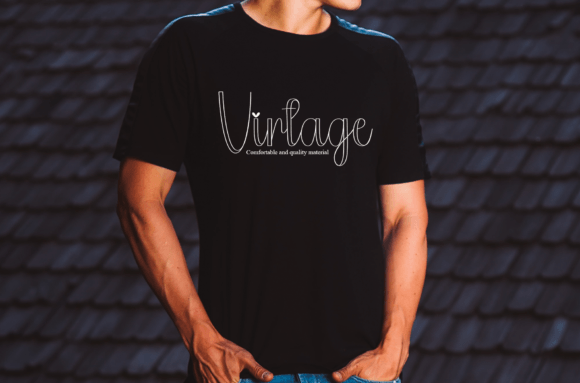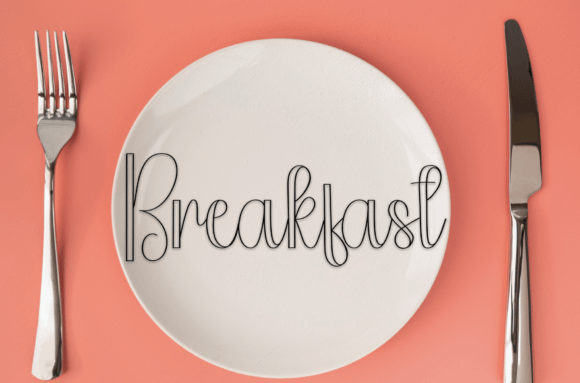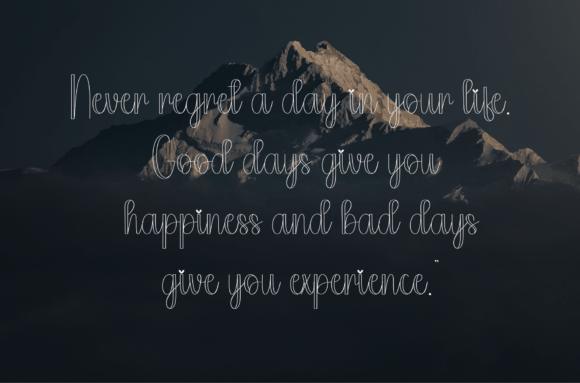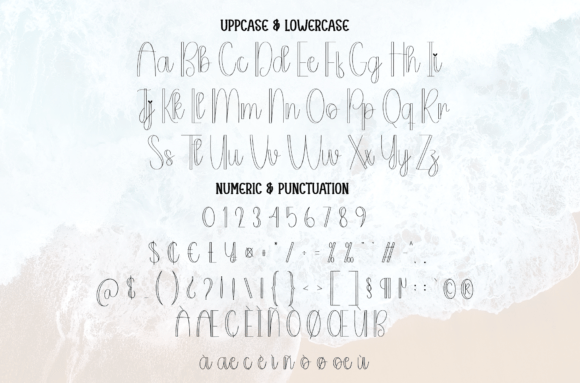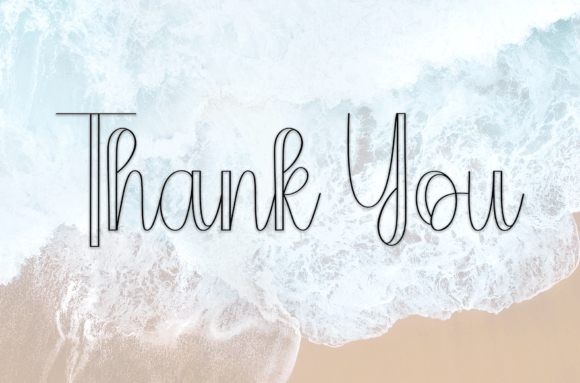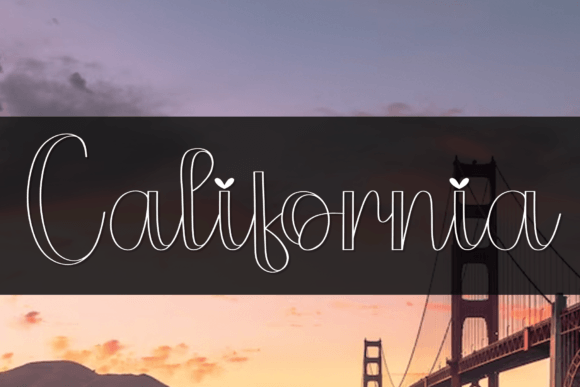
Introducing California Font: The Perfect Handwritten Font for Your Creative Projects
Are you looking for a font that can add a touch of sweetness and friendliness to your designs? Look no further than California Font! This beautiful handwritten font is perfect for creating wedding invitations, greeting cards, and other designs that require a fun and playful touch.
What Makes California Font So Special?
California Font is a fresh and neat handwritten font that is sure to capture the hearts of designers and crafters alike. Its sweet and friendly vibe makes it an ideal choice for projects that require a personal touch. Whether you’re creating wedding invitations, birthday cards, or social media graphics, California Font is the perfect choice.
Key Features of California Font
- Handwritten style: California Font is a beautiful handwritten font that mimics the look of handwritten text.
- Sweet and friendly vibe: This font has a warm and inviting feel that’s perfect for creating designs that require a personal touch.
- Fresh and neat: California Font is a clean and modern font that’s perfect for creating designs that require a fresh and contemporary look.
- Versatile: This font can be used for a wide range of projects, from wedding invitations to social media graphics.
Why Designers and Crafters Love California Font
Designers and crafters love California Font for its versatility and ease of use. This font is perfect for creating a wide range of designs, from simple greeting cards to complex social media graphics. Its sweet and friendly vibe makes it an ideal choice for projects that require a personal touch.
How to Use California Font in Your Designs
Using California Font in your designs is easy! Here are a few tips to get you started:
- Pair it with other fonts: California Font pairs well with other fonts, such as sans-serif fonts and script fonts.
- Use it for headings and body text: This font is perfect for both headings and body text, making it a versatile choice for your designs.
- Add a personal touch: Use California Font to add a personal touch to your designs, such as in wedding invitations and greeting cards.
Tips and Tricks for Getting the Most Out of California Font
Here are a few tips and tricks for getting the most out of California Font:
- Experiment with different colors: California Font looks great in a variety of colors, so don’t be afraid to experiment!
- Use it for digital and print designs: This font is perfect for both digital and print designs, making it a versatile choice for your projects.
- Combine it with graphics and images: California Font pairs well with graphics and images, making it a great choice for designs that require a visual element.